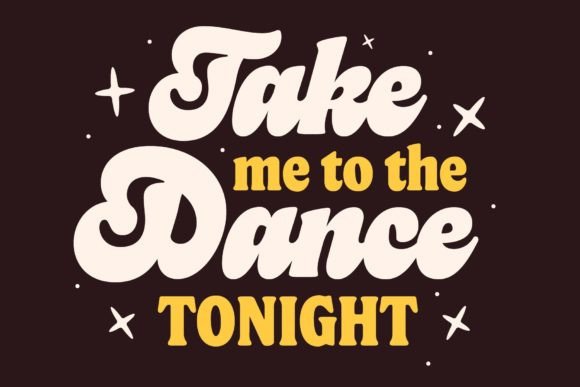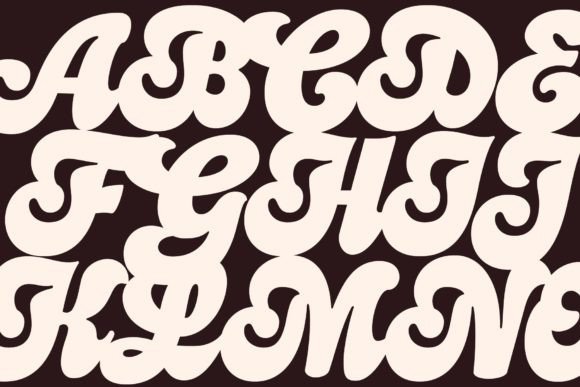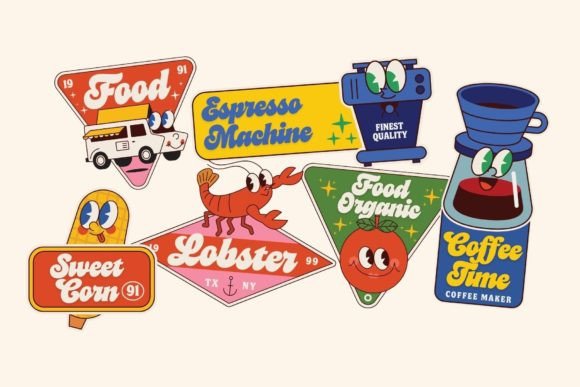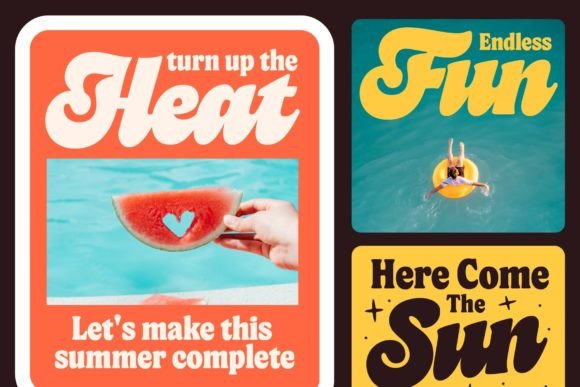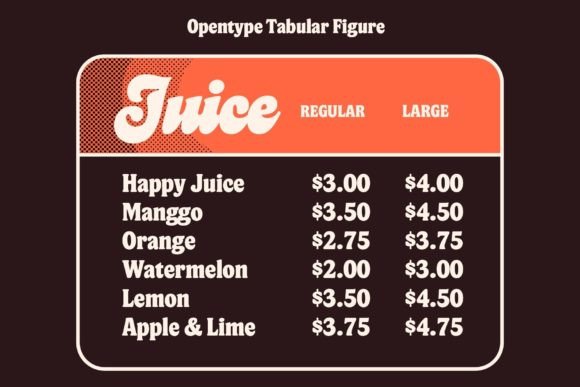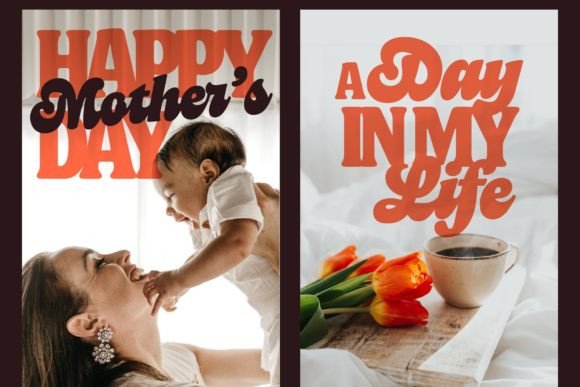
Introducing Cardin Duo Font: The Ultimate Combination of Energy and Sophistication
In the world of typography, font pairings can make or break a design. A well-curated duo can elevate a project from ordinary to extraordinary, while a mismatched pair can leave it feeling disjointed. This is where Cardin Duo Font comes in – a bold, juicy font duo that effortlessly combines a dynamic script and a casual serif display. In this article, we’ll dive into the unique features of Cardin Duo and explore how it can take your creative projects to the next level.
The Dynamic Script: Energy and Expressiveness
The script font in Cardin Duo is a true showstopper. Its fluid, expressive strokes exude energy and playfulness, making it perfect for designs that require a bit of pizzazz. Whether you’re creating a bold headline or a catchy tagline, this script font is sure to grab attention. Its dynamic nature also makes it ideal for branding projects, where you want to convey a sense of excitement and enthusiasm.
The Casual Serif: Sophistication and Elegance
While the script font in Cardin Duo is undoubtedly the life of the party, the serif font is the perfect complement to its energetic vibes. Adding a touch of sophistication and elegance, the serif font brings a level of refinement to any design. Its casual nature also makes it suitable for a wide range of projects, from creative endeavors to more formal applications.
The Perfect Pairing: Cardin Duo Font
So, what happens when you pair these two incredible fonts together? Magic, that’s what. Cardin Duo Font is the ultimate combination of energy and sophistication, making it perfect for striking headlines, branding, or any creative project that requires a vibrant and captivating visual experience. The contrast between the dynamic script and the casual serif creates a visually appealing harmony that draws the viewer in and refuses to let go.
Why Choose Cardin Duo Font?
With so many font duos on the market, why choose Cardin Duo? Here are just a few reasons why designers and crafters are falling in love with this incredible font combination:
- Versatility: Cardin Duo Font is suitable for a wide range of projects, from creative endeavors like posters and flyers to more formal applications like branding and advertising.
- Legibility: Both fonts in the duo are highly legible, making them perfect for use in headlines, titles, and body copy.
- Customization: With a range of customization options available, you can tailor Cardin Duo to fit your unique design needs.
- Unique Style: The combination of a dynamic script and a casual serif creates a unique visual style that’s sure to set your project apart from the crowd.
Tips for Using Cardin Duo Font
Now that you’re convinced of the awesomeness that is Cardin Duo Font, here are a few tips for getting the most out of this incredible font duo:
- Experiment with Font Sizes: Play around with different font sizes to create visual interest and hierarchy in your design.
- Mix and Match: Don’t be afraid to mix and match the script and serif fonts to create a unique look that suits your project.
- Add Texture and Patterns: Add texture and patterns to your design to give it an extra layer of depth and visual interest.
In conclusion, Cardin Duo Font is a game-changer for designers and crafters looking to elevate their creative projects. With its dynamic script and casual serif display, this font duo offers a unique combination of energy and sophistication that’s sure to captivate audiences. Whether you’re working on a branding project, creating a poster, or designing a website, Cardin Duo Font is the perfect choice for anyone looking to make a statement.